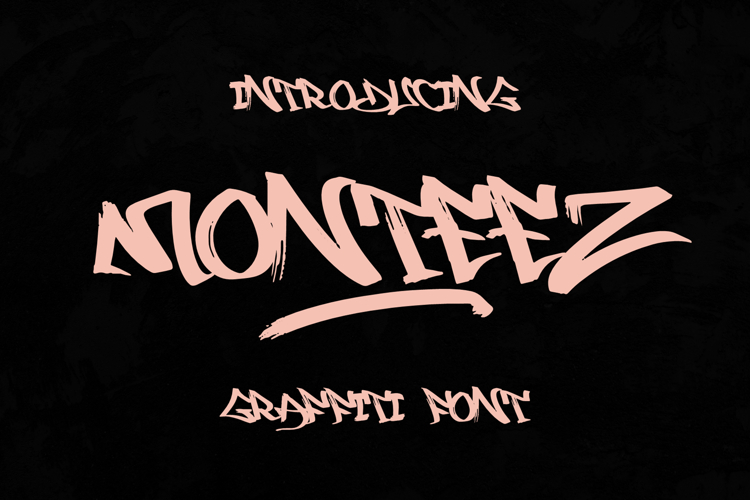
Monteez - Brush Graffiti Font
Step into the dynamic world of street art with Monteez – the urban graffiti font that exudes raw energy and urban flair. More than just a font, Monteez is a statement of rebellion and creativity, perfect for capturing the bold and vibrant spirit of the streets.
🏙️ Authentic Graffiti Style: Monteez captures the authentic look and feel of graffiti tags found on city walls. Its bold strokes and rugged letterforms embody the gritty aesthetic of urban art, adding an unmistakable edge to your designs.
🎨 Endless Creativity: With Monteez, the possibilities are endless. Whether you're designing posters, apparel, or digital graphics, this font empowers you to unleash your creativity and push the boundaries of artistic expression.
🔥 Make a Bold Statement: Leave your mark on the world with Monteez. Its bold and expressive style commands attention and sparks curiosity, ensuring your message is seen and remembered in the bustling urban landscape.
🌟 Youthful Appeal: Embrace the rebellious spirit of street culture with Monteez. Its edgy urban aesthetic resonates with young, creative audiences, making it the perfect choice for projects aimed at capturing the essence of urban youth culture.
💡 Versatile Application: From street art festivals to skateboarding brands, Monteez is versatile enough to handle any project with style and flair. Its authentic graffiti style adds authenticity and personality to your designs, ensuring they stand out from the crowd.
🌆 Cityscape Inspiration: Inspired by the vibrant streets of the city, Monteez brings the energy and vitality of urban life to your designs. Its graffiti style captures the raw intensity and passion of street art, infusing your projects with an authentic urban vibe.
Transform your designs into urban masterpieces with Monteez – where graffiti meets typography, and creativity knows no bounds. It's time to make your mark on the world with this best-selling urban graffiti font leading the way.